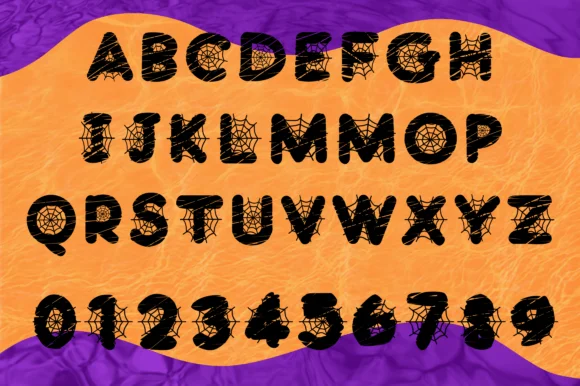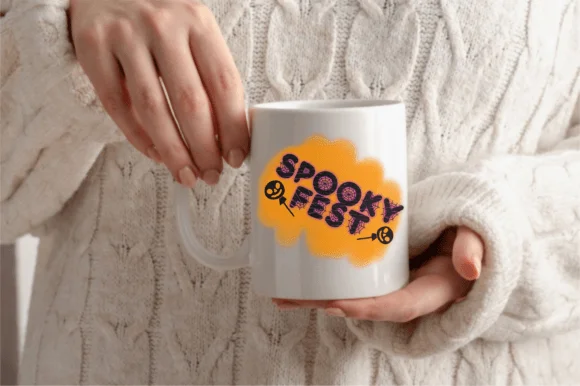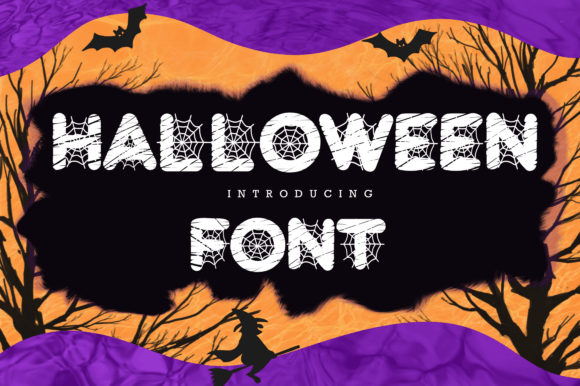
This versatile font is perfect for Halloween party invitations, spooky seasonal decorations, trick-or-treat signage, Halloween costume events, haunted house displays, October festival marketing, horror-themed celebrations, Halloween craft projects, spooky social media graphics, and comprehensive Halloween messaging materials.
Halloween Font is exciting because it embodies the timeless essence and universal appeal of Halloween celebrations through its authentically crafted letterforms that capture the perfect balance of spookiness and fun that defines the world's most beloved supernatural holiday. The font features classically proportioned characters with traditional Halloween styling and iconic details that reflect the rich heritage of October 31st traditions, from ancient Celtic festivals to modern trick-or-treating adventures, incorporating subtle spooky flourishes and festive elements that create typography as versatile and enduring as Halloween itself. Each letter showcases the careful balance between frightening and entertaining that makes Halloween accessible to all ages while maintaining the supernatural excitement that transforms ordinary autumn nights into magical celebrations of mystery, imagination, and community fun that brings people together in shared appreciation of the delightfully spooky.
The Halloween Font family includes comprehensive style variations: Regular, Bold, Light, Spooky, and Classic versions. The collection features special Halloween elements including pumpkin accents, ghost flourishes, bat details, and traditional ornaments. Additional components include spooky borders, Halloween frames, festive decorations, and classic ornamental designs that enhance the font's Halloween appeal and create cohesive supernatural holiday themes for any October celebration.
Halloween enthusiasts and event planners will find Halloween Font to be an essential resource for creating authentic Halloween communications that honor the beloved traditions and universal appeal of the most supernaturally exciting night of the year. This traditionally crafted font transforms ordinary Halloween messaging into classic expressions that resonate with audiences of all ages who celebrate the magical combination of fear and fun that makes Halloween such an enduring and globally beloved holiday celebration.
The typeface includes comprehensive character support with traditional Halloween styling that maintains excellent readability while conveying the festive spookiness and supernatural charm of classic Halloween celebrations. The font's versatile design ensures perfect results across both intimate family applications and large-scale community Halloween events and commercial seasonal campaigns.
Perfect for families, communities, businesses, and Halloween enthusiasts of all kinds, this font delivers authentic visual impact that communicates the timeless appeal, supernatural excitement, and universal magic that makes Halloween the most wonderfully spooky and delightfully frightening celebration in the world.